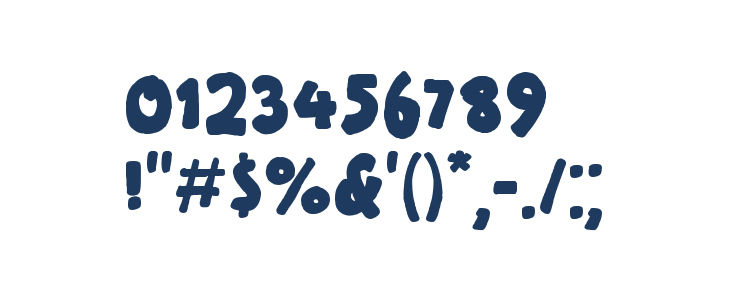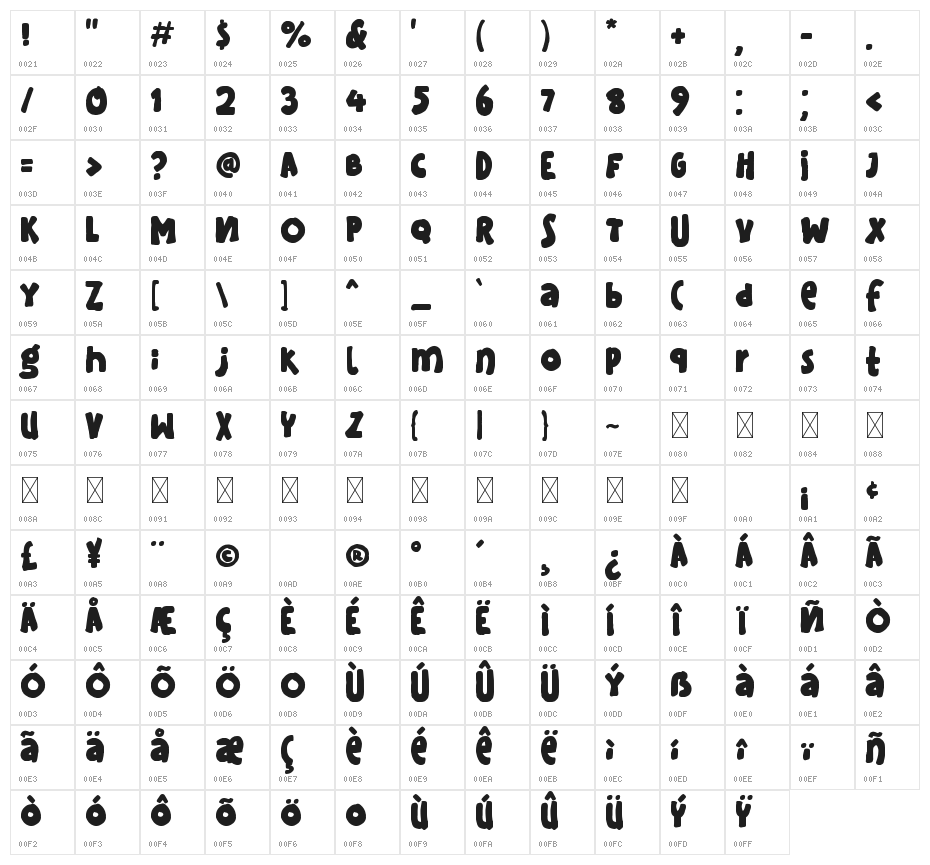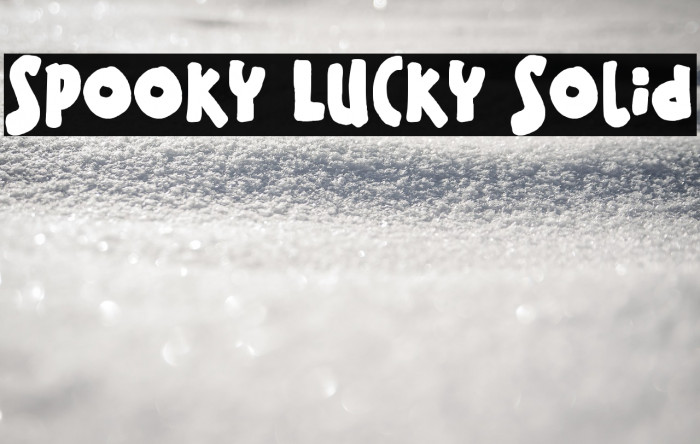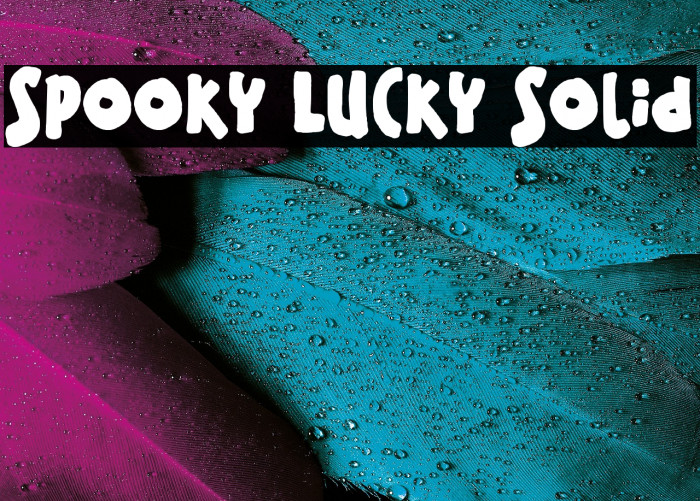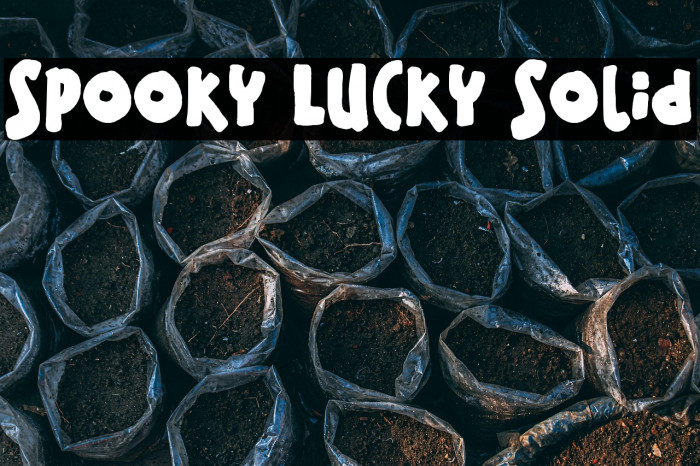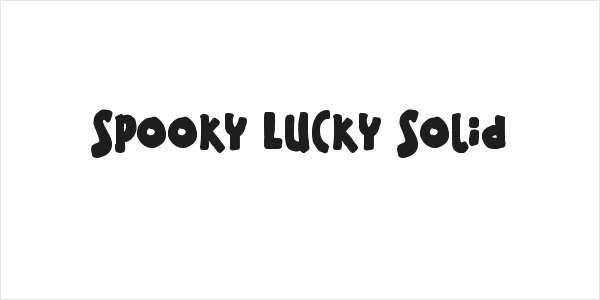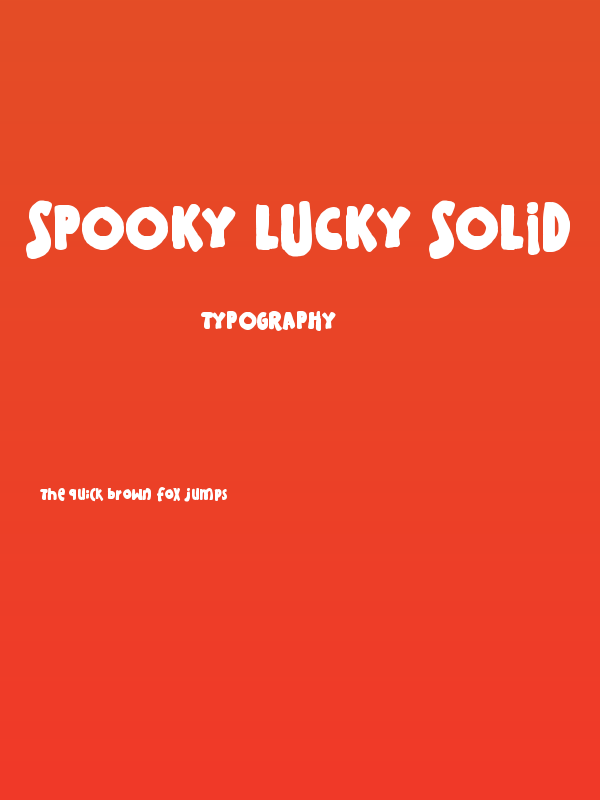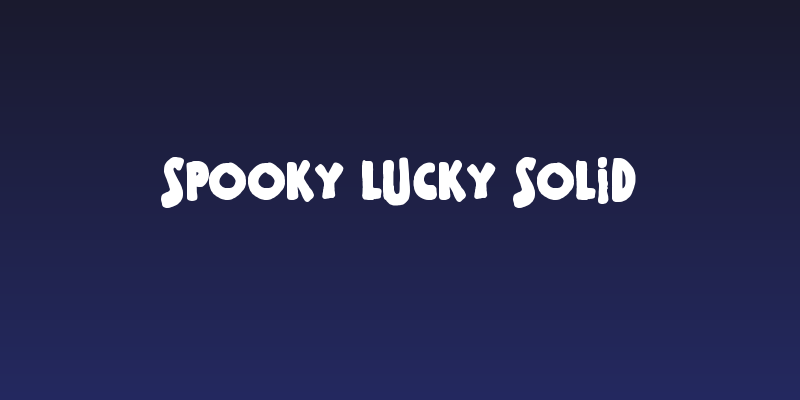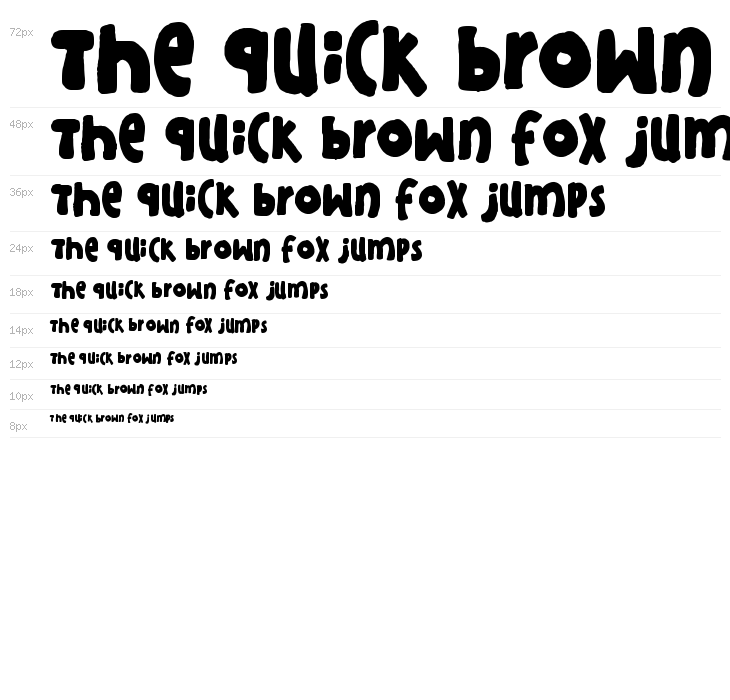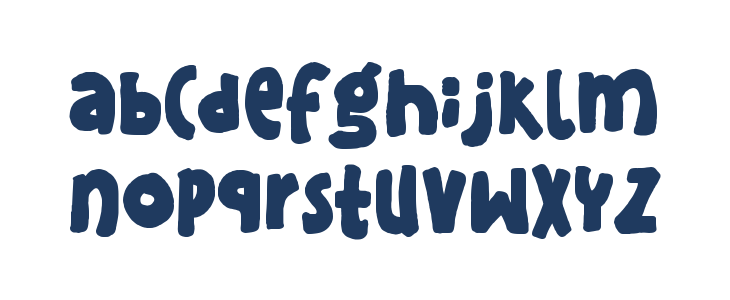
Spooky Lucky Solid Font
Spooky Lucky Solid Description
This font features a playful and bold design with a hand-drawn aesthetic. The characters are rounded and slightly irregular, giving them a whimsical and friendly appearance. The uppercase and lowercase letters maintain a consistent style, with thick strokes and a slightly uneven baseline that adds to the casual feel. The numbers and special characters follow the same design principles, ensuring a cohesive look across all glyphs. This font is ideal for projects that require a fun and approachable vibe, such as children's books, party invitations, or playful branding.
| Proposed Projects | Children's books, party invitations, playful branding, casual posters. |